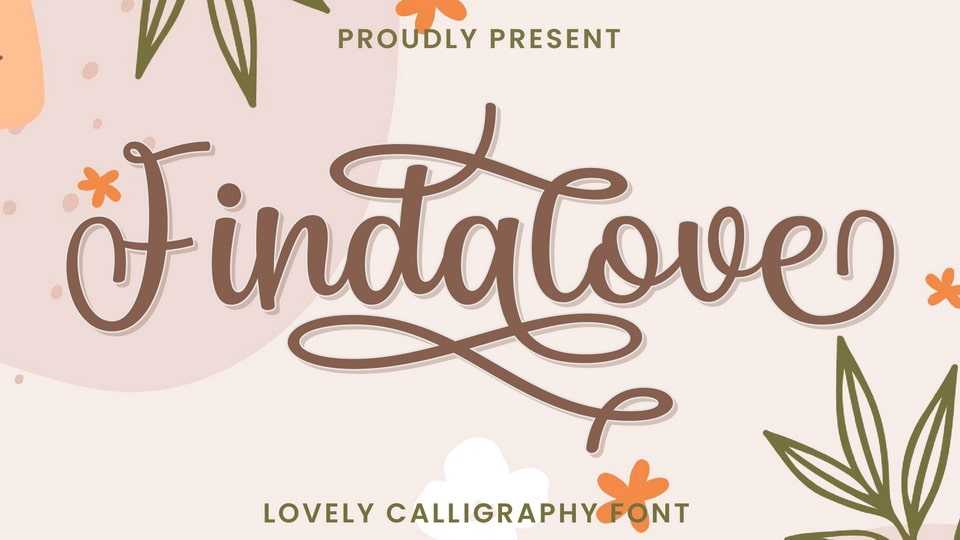
Download Findalove font, a fabulously fun yet elegant script typeface with tons of energy, allowing you to create beautiful hand-made typography in an instant.